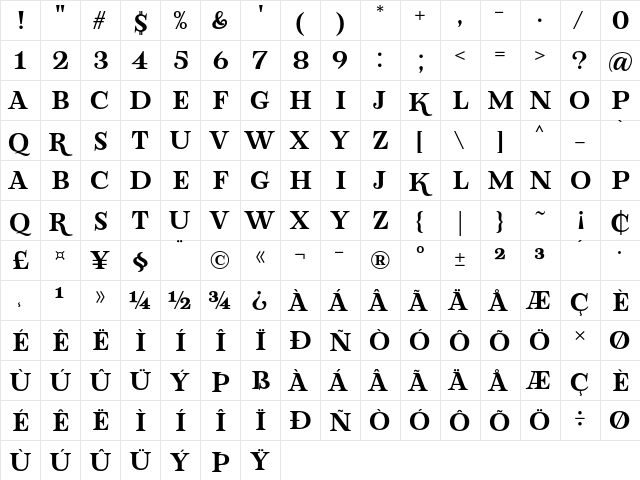
Lova Valove Serif Regular
| Foundry | 7NTypes |
| Designer | Situjuh Nazara |
Design Context for Lova Valove Serif Typeface
Lova Valove Serif carries the refined structure of traditional serif typography, with bracketed terminals and considered proportions that communicate credibility and craft.
Pro Tip: Set Lova Valove Serif with slightly loose tracking in headlines to let each letterform's detail read clearly at display sizes.